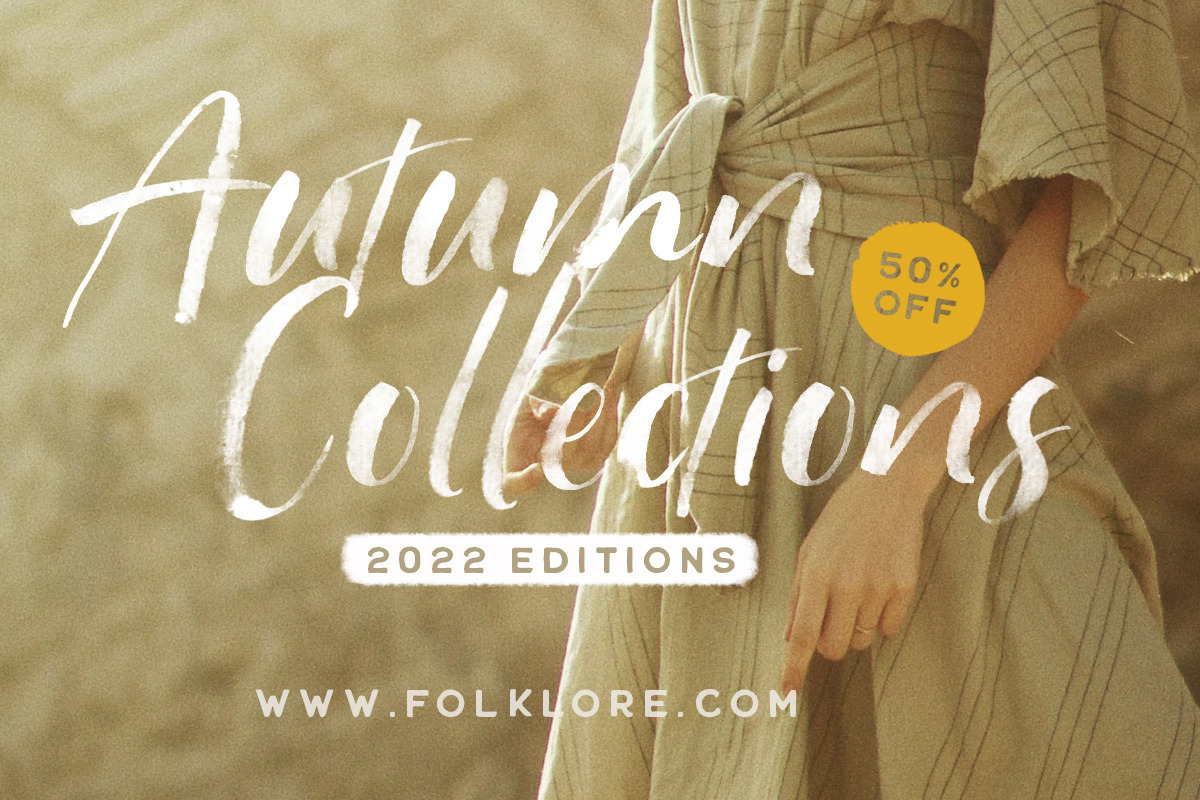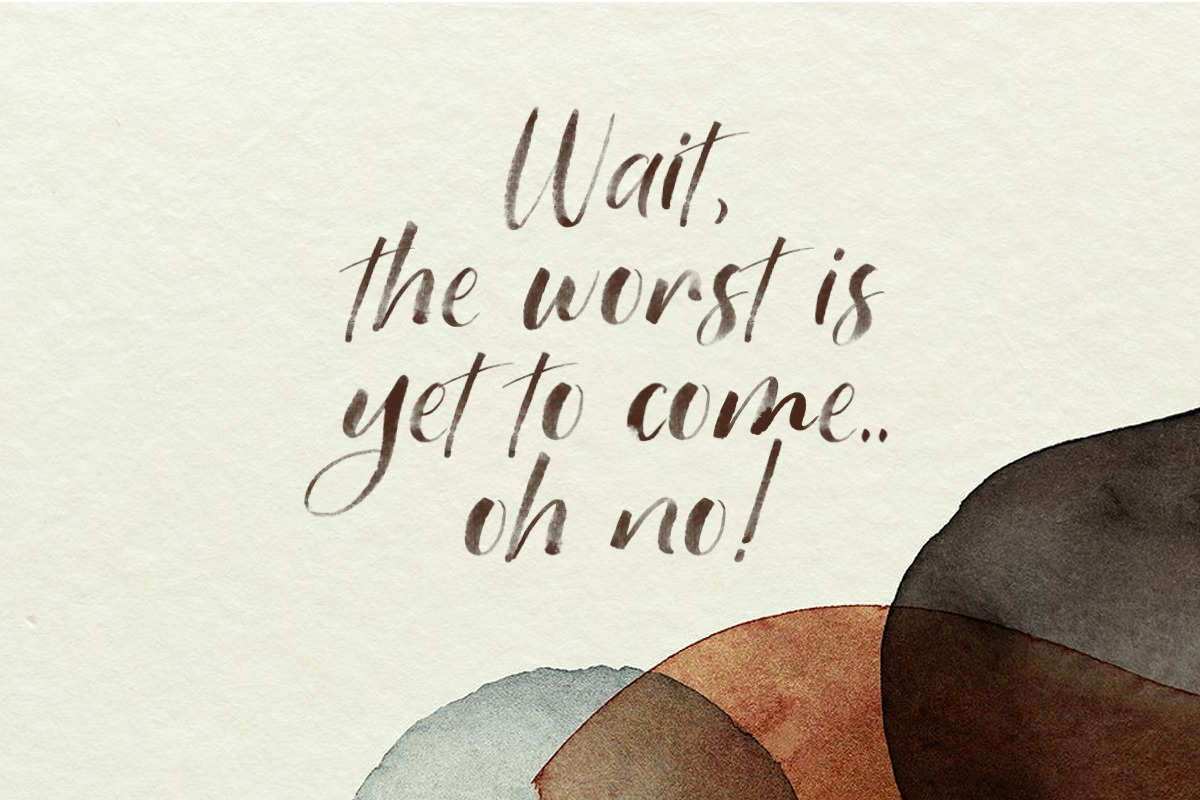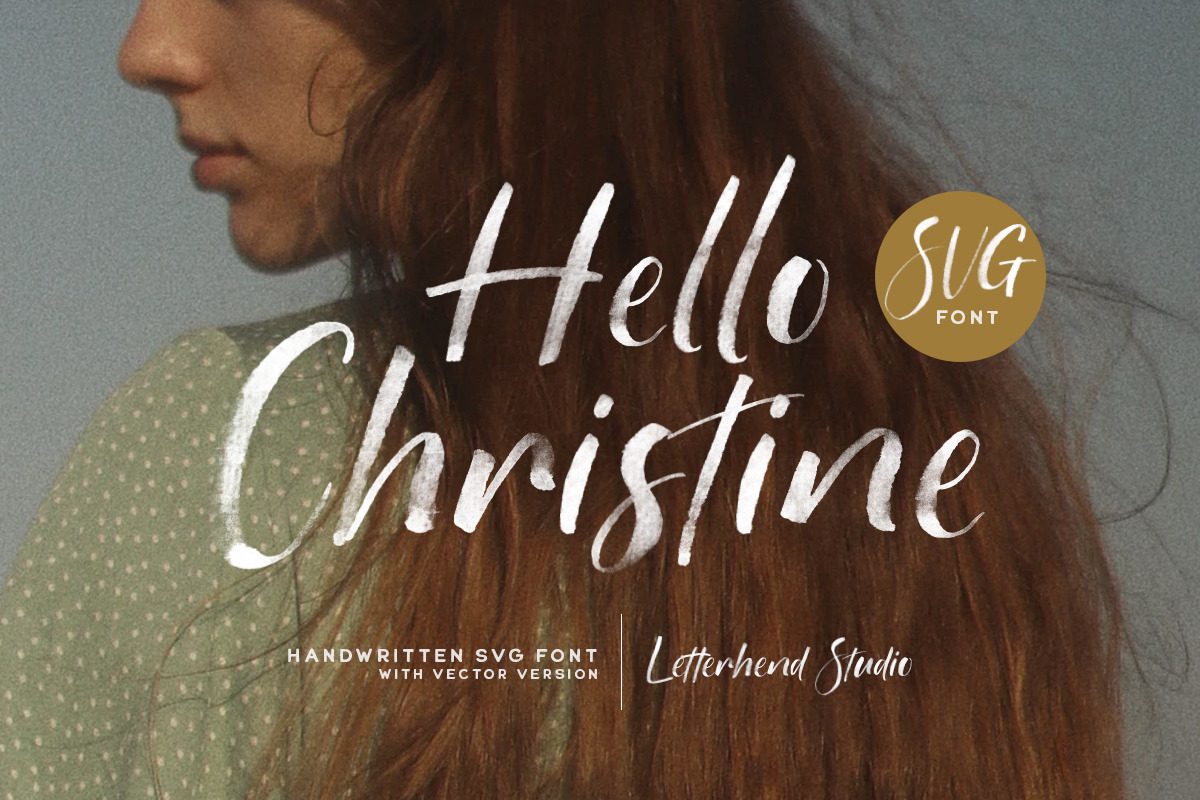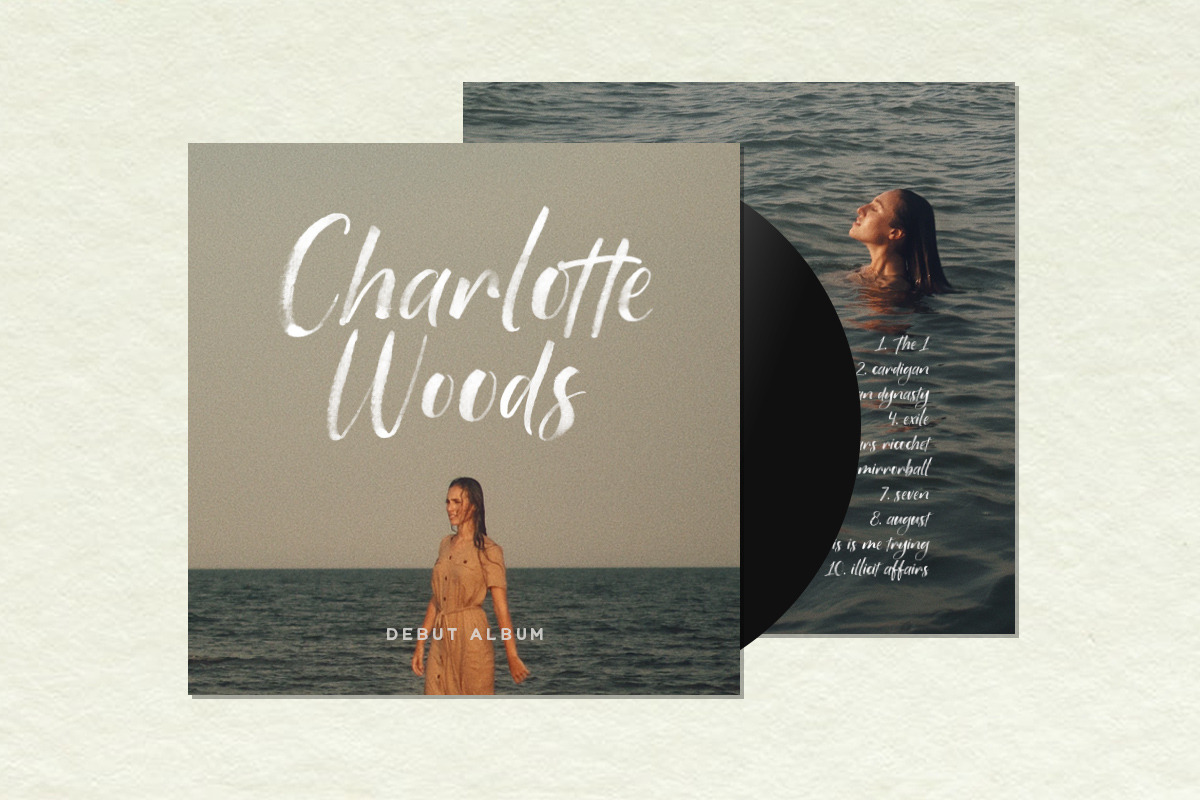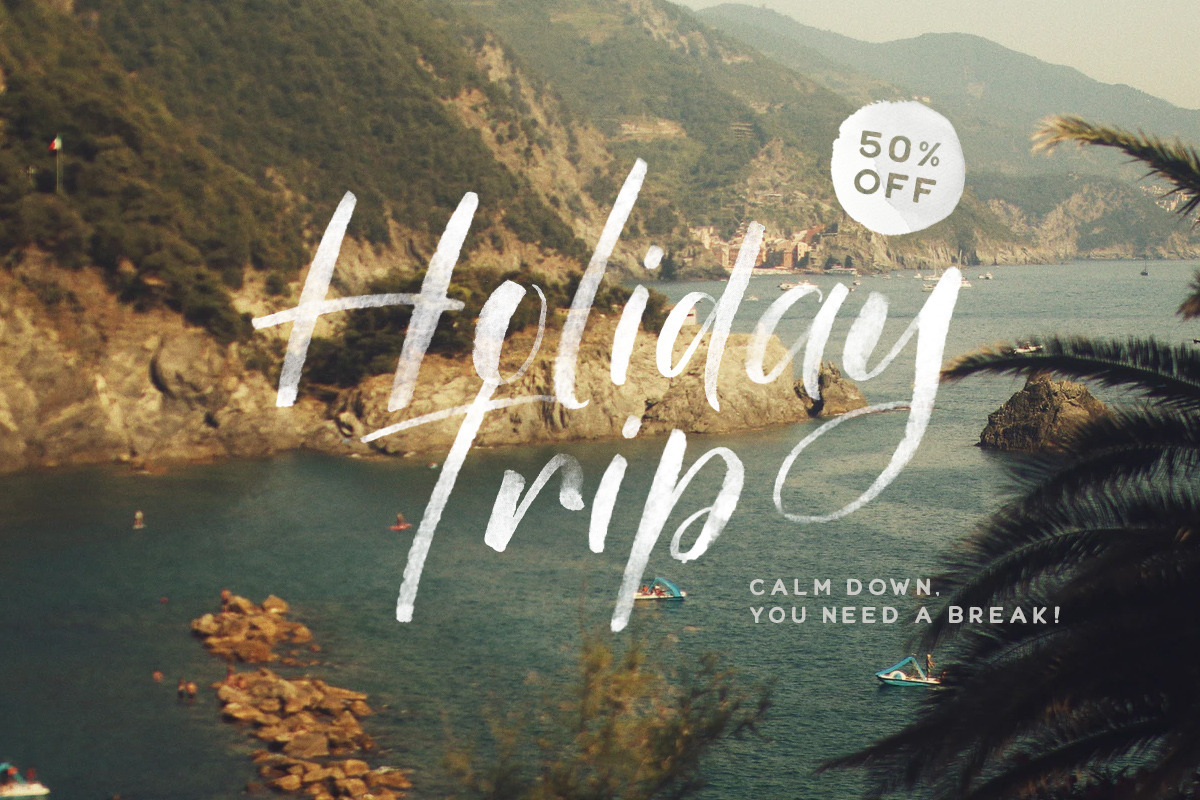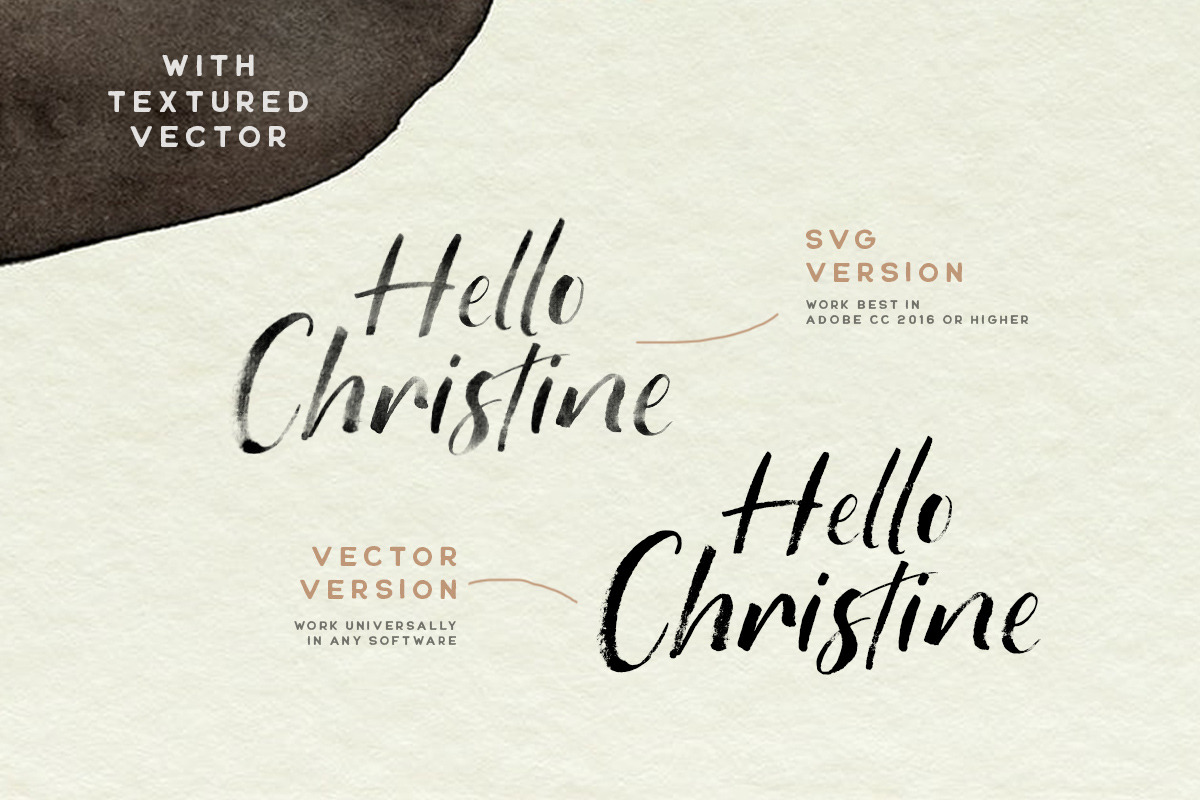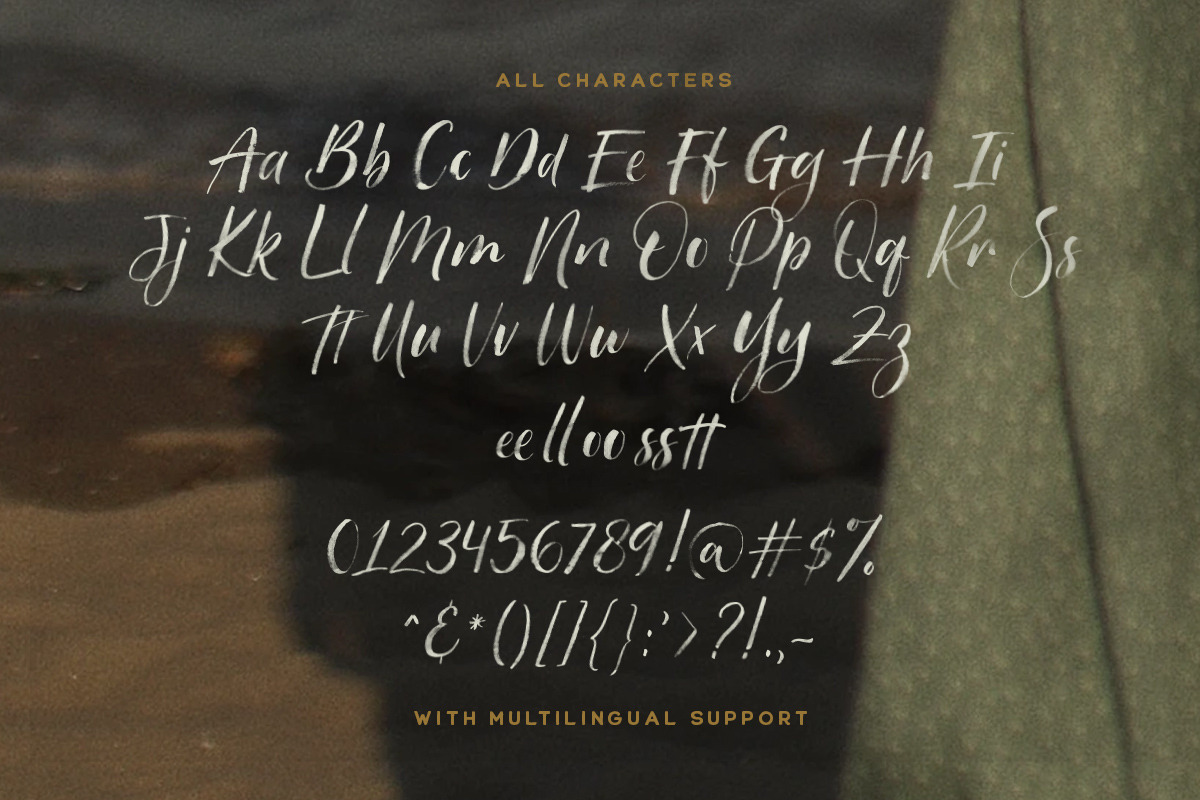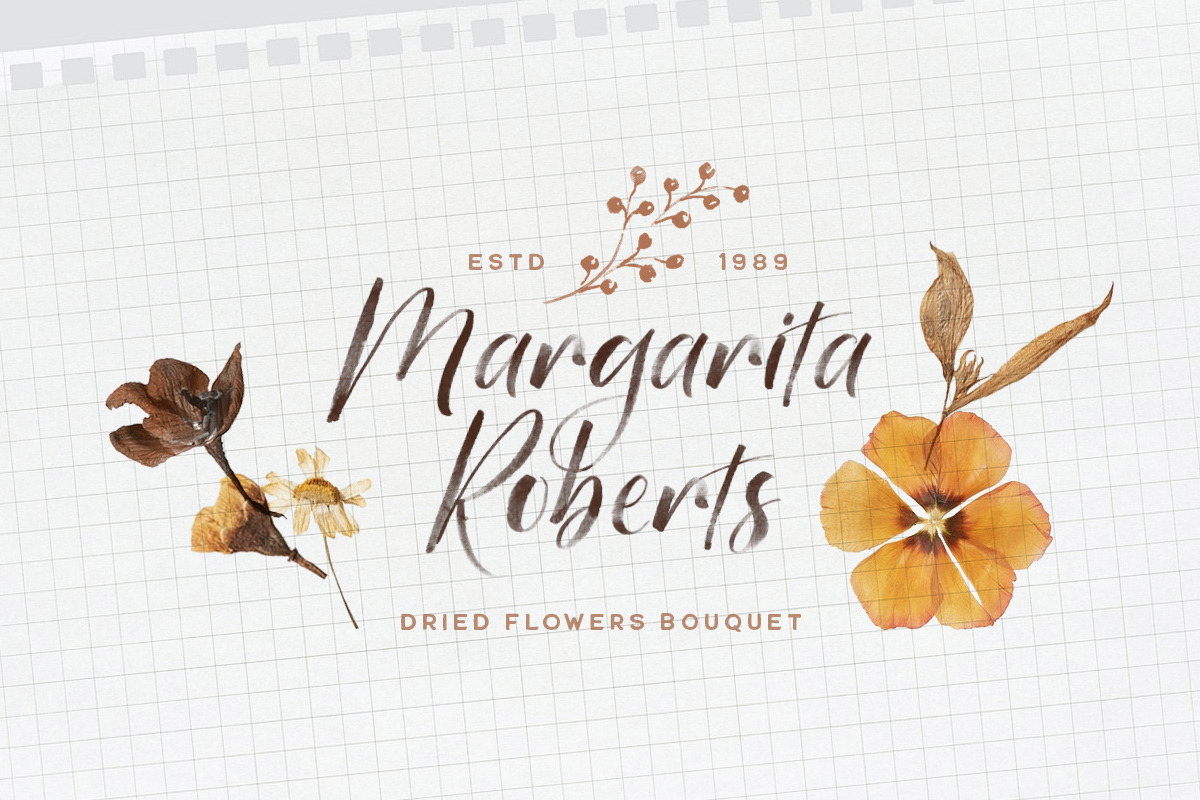
Hello Christine - SVG Font
Introducing, Hello Christine - a textured SVG brush typeface. Available in two types, solid version and textured transparent version. This type of font perfectly made to be applied especially in headlines which is need a standout font, and the other various formal forms such as invitations, labels, logos, magazines, books, greeting / wedding cards, packaging, fashion, make up, stationery, novels, labels or any type of advertising purpose.
- Lowercase & uppercase